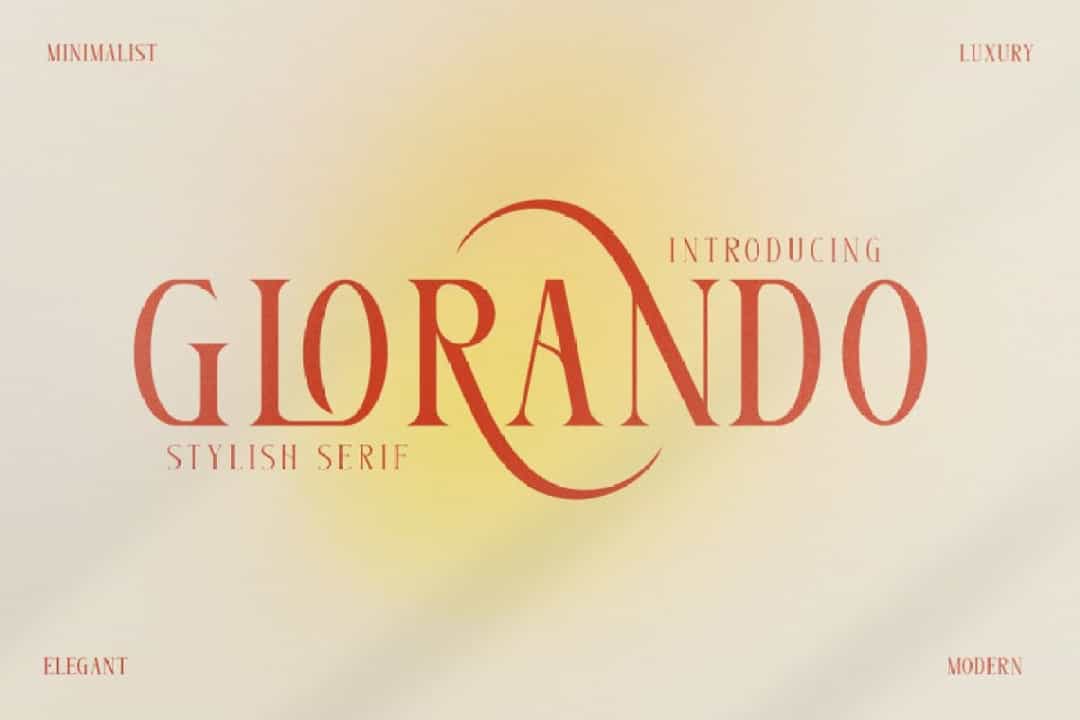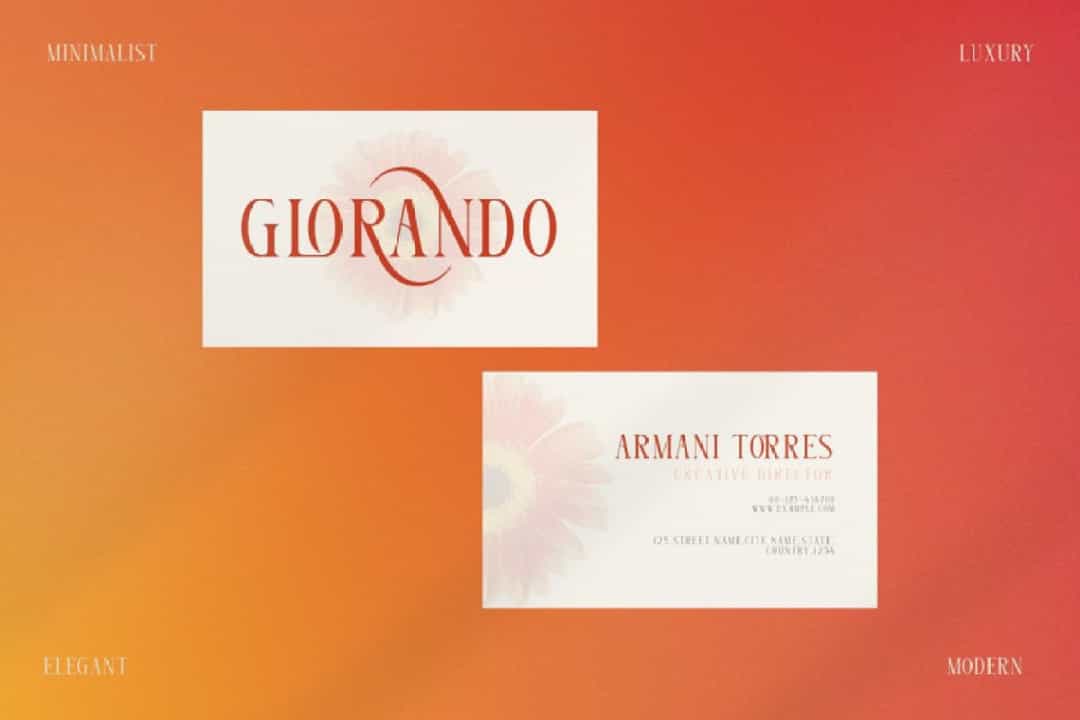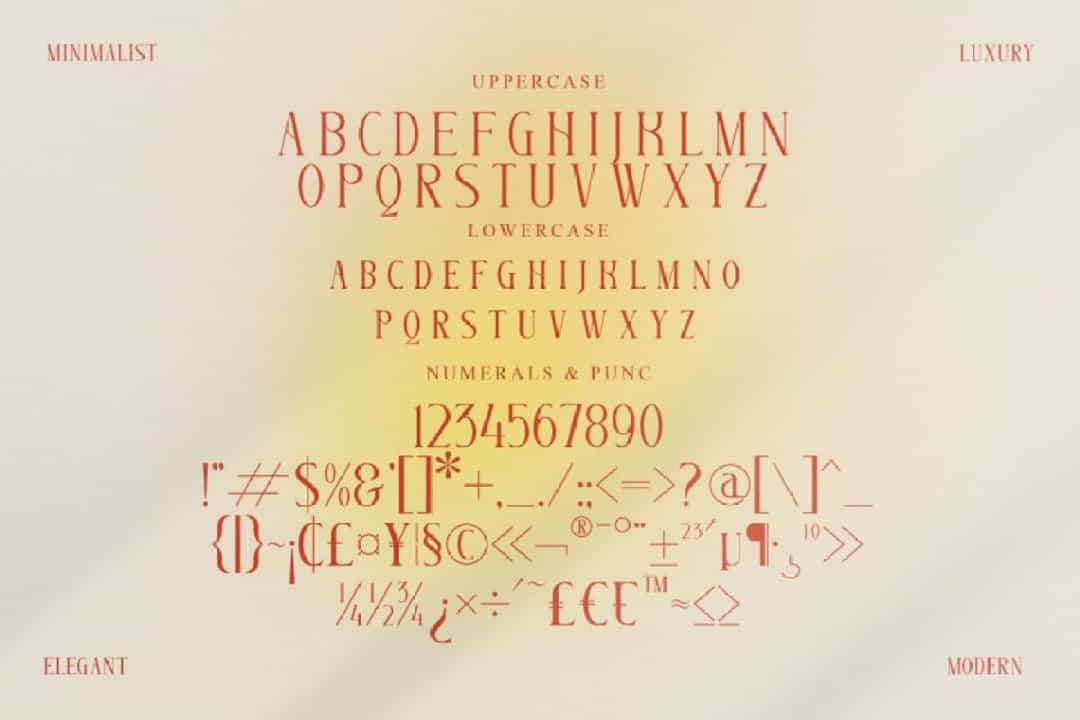
Glorando Serif, created by Storytype, is an elegant modern serif font. Featuring its distinct style and appearance, this font can help create classy logos or movie/book name designs, fashion magazine covers and clothing graphics, lettering projects as well as quotes.